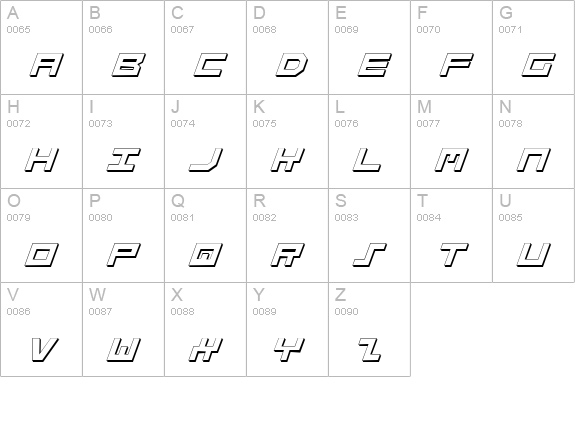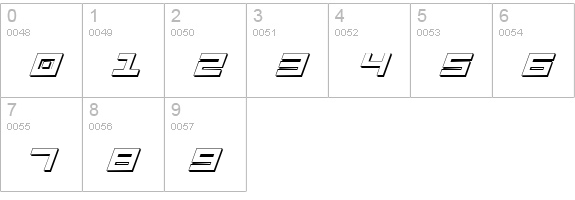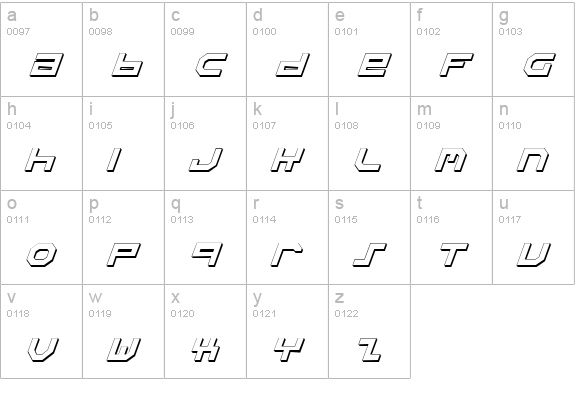
Stuntman Shadow Italic is a distinctive, italic variant in the Stuntman typeface family \xE2\x80\x94 well suited to design and typography projects.
Stuntman Shadow Italic font is a bold and dynamic typeface that exudes energy and excitement. With its slanted and sharp edges, this font is perfect for creating eye-catching headlines, posters, and logos that demand attention. The italic style adds a sense of movement and flair, making it ideal for projects that need a touch of drama. What sets Stuntman Shadow Italic font apart is not only its striking appearance but also the fact that it is completely free to download. That's right, you can get your hands on this impressive font at no cost by visiting FontsMarket.com. So why wait? Add a touch of daring and style to your designs with Stuntman Shadow Italic font today!